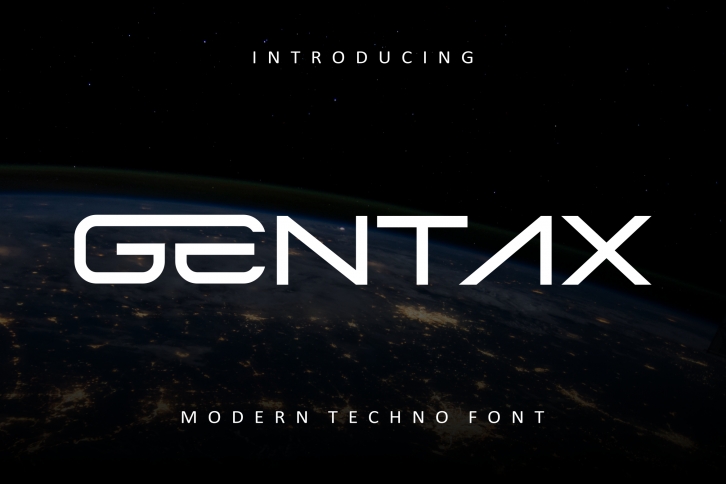
Gentax is a bold and authentic display font. It is perfect for any branding project such as logos, t-shirt printing, creative products, and more. It will look extraordinary in a variety of contexts.